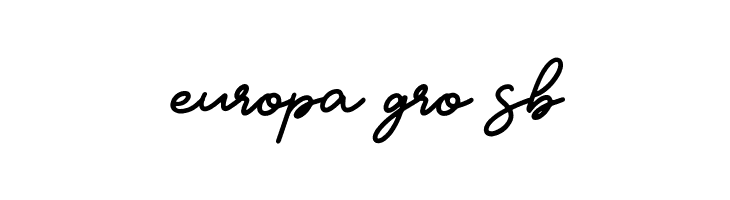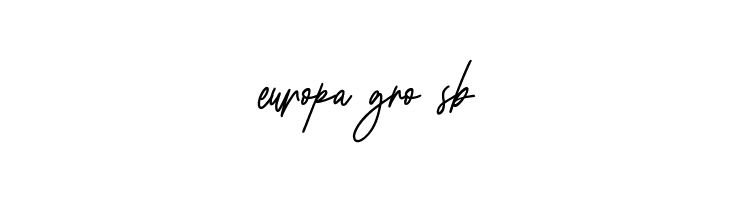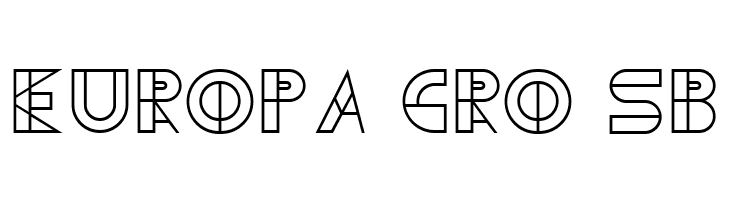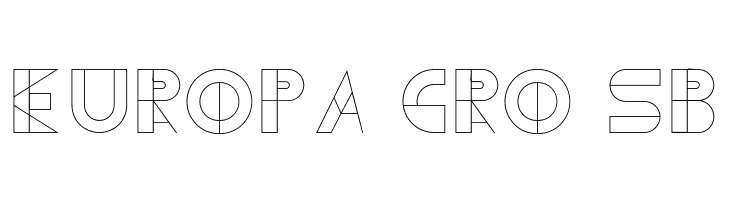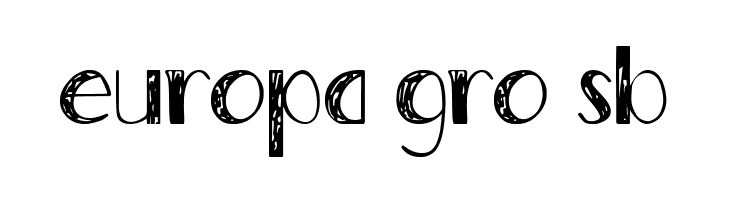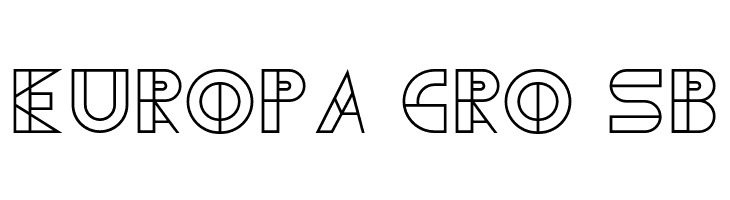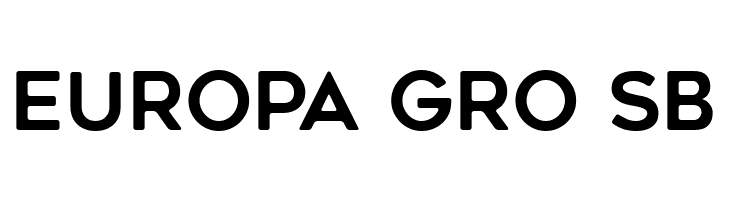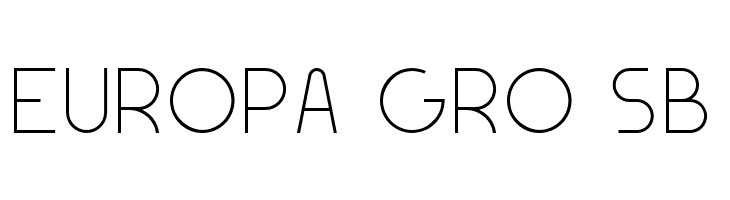
A playful, hand-drawn font with a textured, artistic style.
A playful, hand-drawn font with a textured, sketch-like appearance.
A delicate, flowing script font with elegant, elongated letterforms.
A lively cursive font with a fluid, handwritten style.
A geometric, modern font with clean lines and a minimalist aesthetic.
A modern, rounded font with a geometric structure and friendly appearance.
A geometric, minimalist font with thin lines and a modern, futuristic style.
A geometric and modern font with a clean, futuristic design.
A geometric, extra-light font with a minimalist and modern design.
A geometric and modern font with a futuristic design and clean lines.